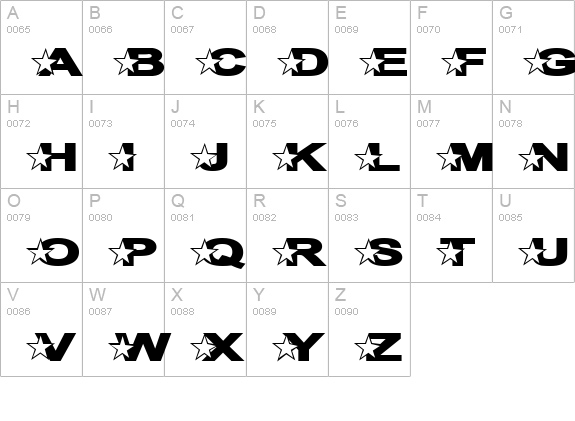
Troglodyte Pop Font Details
Troglodyte Pop is a whimsical and energetic font that brings a touch of retro charm to any design project. With its playful and slightly uneven letterforms, it captures the essence of fun and adventure. The bold strokes and exaggerated curves give this font a unique character, making it perfect for adding a pop of personality to your designs. Troglodyte Pop is a versatile font that can be used in a variety of contexts. Whether you're creating posters, logos, or social media graphics, this font will help you stand out from the crowd. Its eye-catching style is sure to grab attention and leave a lasting impression. One of the best things about Troglodyte Pop is that it is free. Yes, you read that right! This amazing font can be freely downloaded at FontsMarket.com. It's a fantastic opportunity to add some creative flair to your projects without breaking the bank. So why wait? Go ahead and grab this font today and let your imagination run wild. In addition to being free, Troglodyte Pop also offers a wide range of characters and glyphs. It supports multiple languages, making it a great choice for international designs. The font is also easily readable, ensuring that your message is clear and easily understood by your audience. Whether you're a professional designer or a casual hobbyist, Troglodyte Pop is a must-have font in your collection. Its unique style and free availability make it an invaluable resource for any creative project. So don't miss out on this opportunity to add a touch of pop to your designs – head over to FontsMarket.com and download Troglodyte Pop today!